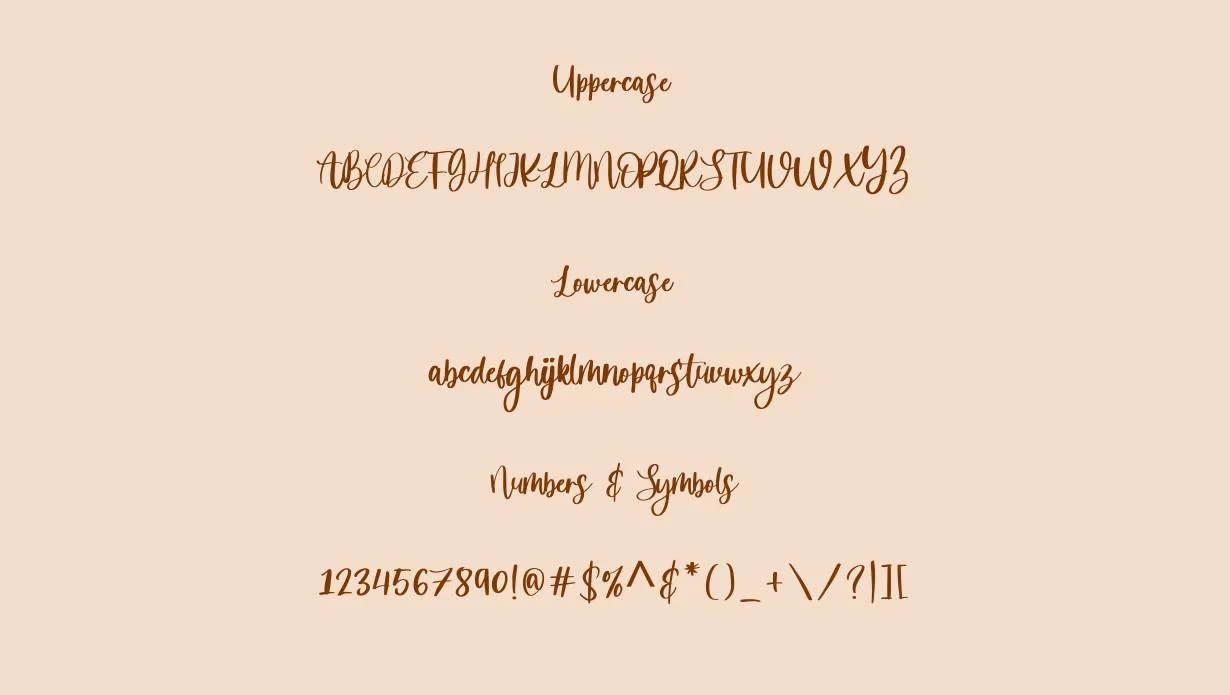
The Victoria Font exudes a regal and elegant aura, making it a great fit for projects that desire a touch of royal charm. Whether you’re working on invitations or refined branding, its stylish characters bring a sense of grace.
| Name | Victoria Font |
| Designer | Restu Angga |